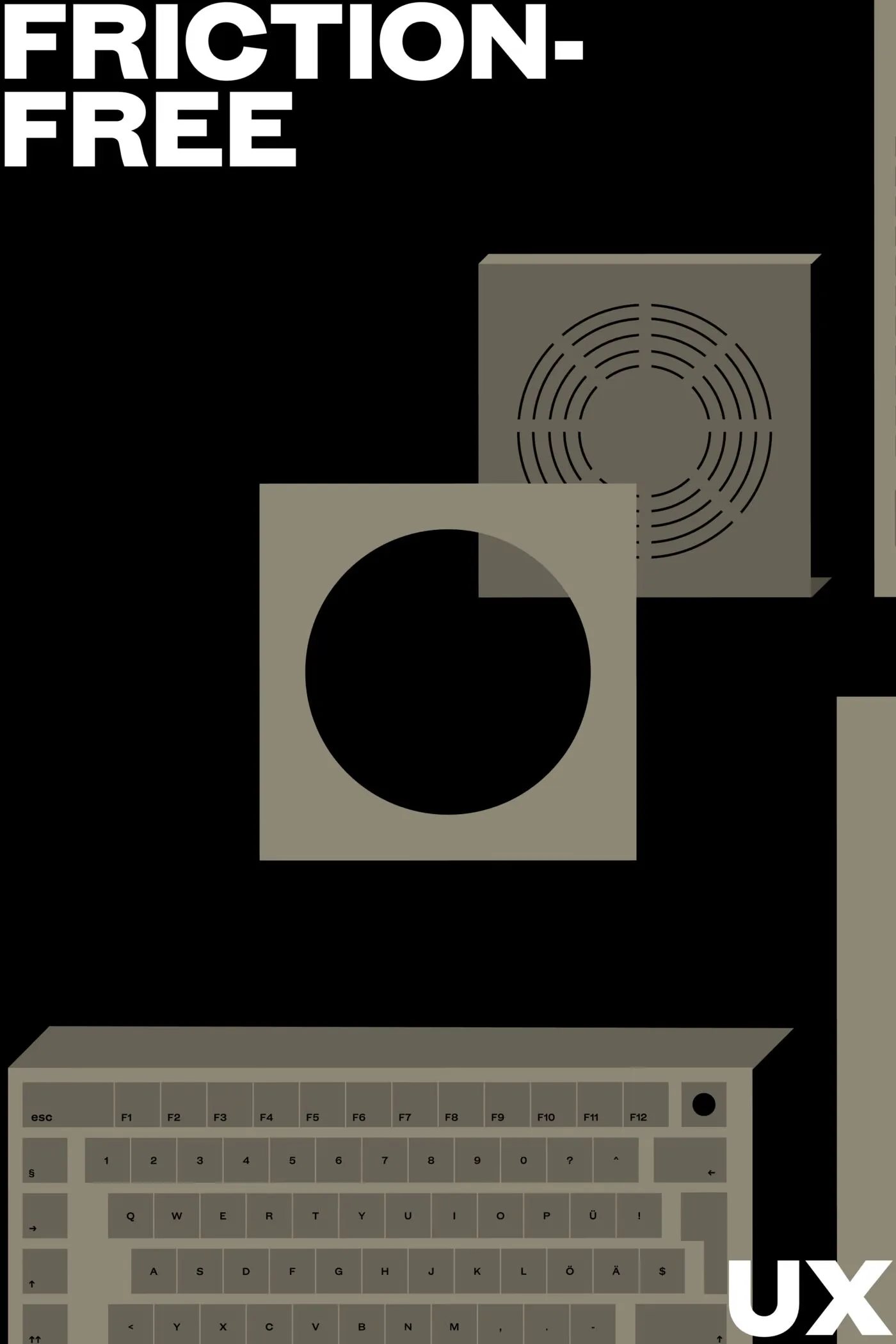
GT Era is a serif typeface from Grilli Type.
GT Era reimagines the warmth and idiosyncrasies of early grotesk typefaces for our own era. These pre-modernist tools were being pushed to their extremes in the radical designs of the modernist movements—like Bauhaus and De Stijl—of the period.